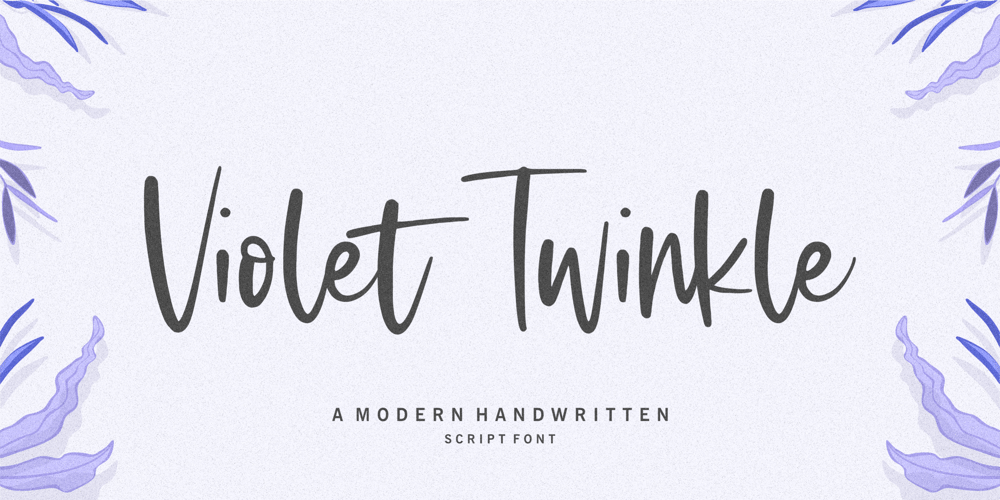
Violet Twinkle Font Family was designed by Restu Angga and published by Balpirick. Violet Twinkle contains 1 styles and family package options. Violet Twinkle Font. Violet Twinkle is a Modern Handwritten Script Font.Violet Twinkle is perfect for product packaging, branding project, megazine, social media, wedding, or just used to express words above the background.Violet Twinkle also multilingual support.Enjoy the font, feel free to comment or feedback, send me PM or email.Thank you!